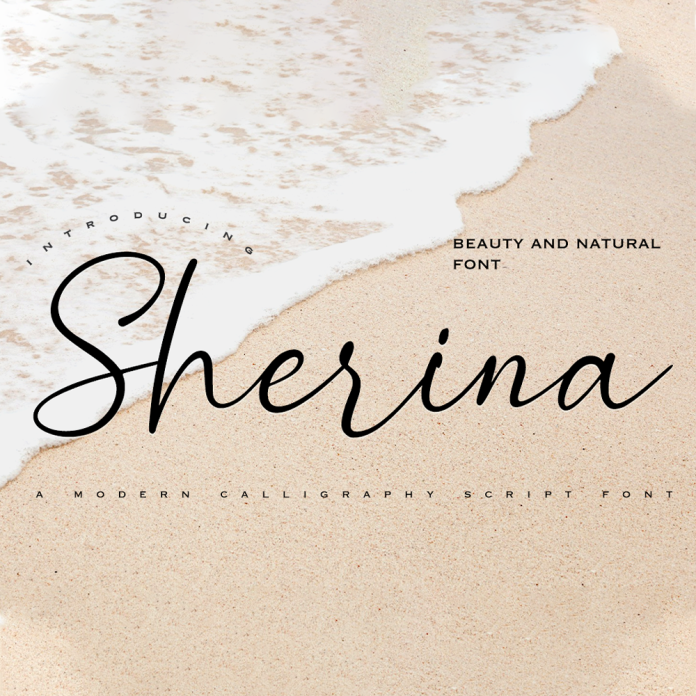
Sherina font is an elegant and sophisticated script font that exudes luxury and femininity. With its flowing lines and graceful curves, it is perfect for adding a touch of glamour to invitations, branding, and other upscale designs. The font is available in various sizes and materials, making it versatile for a wide range of projects.